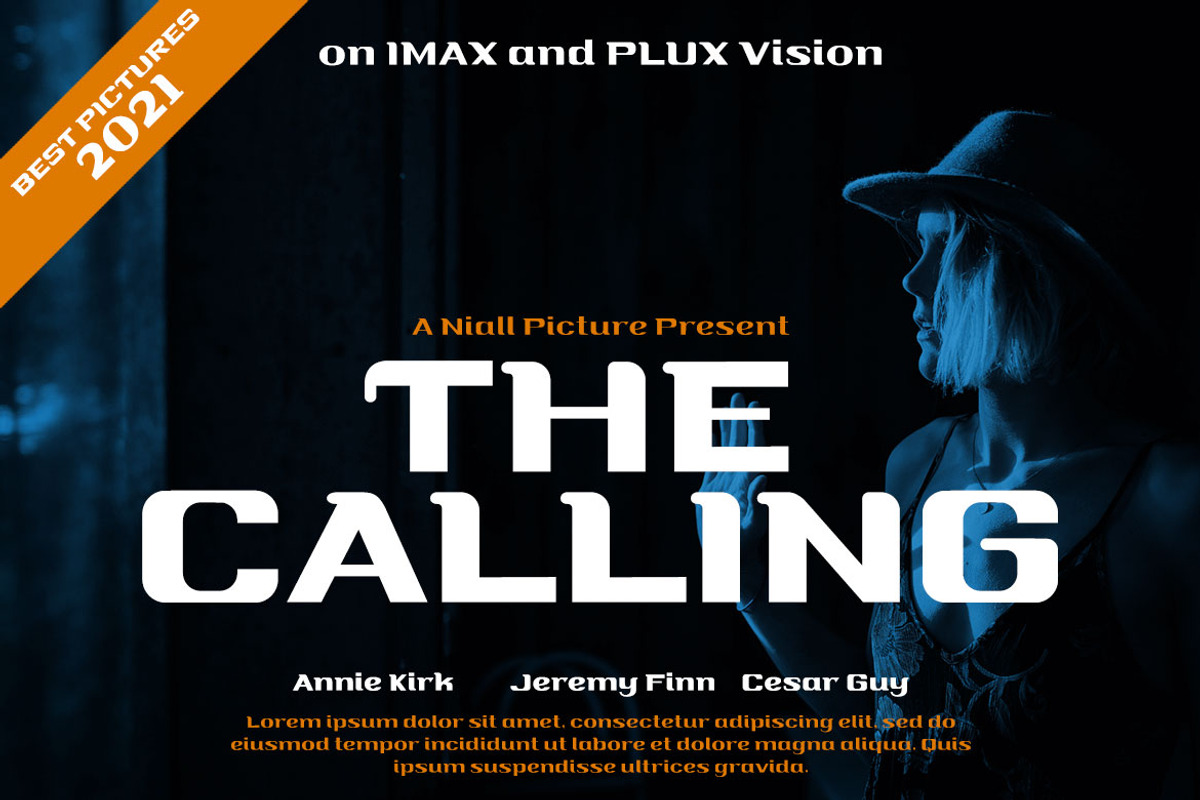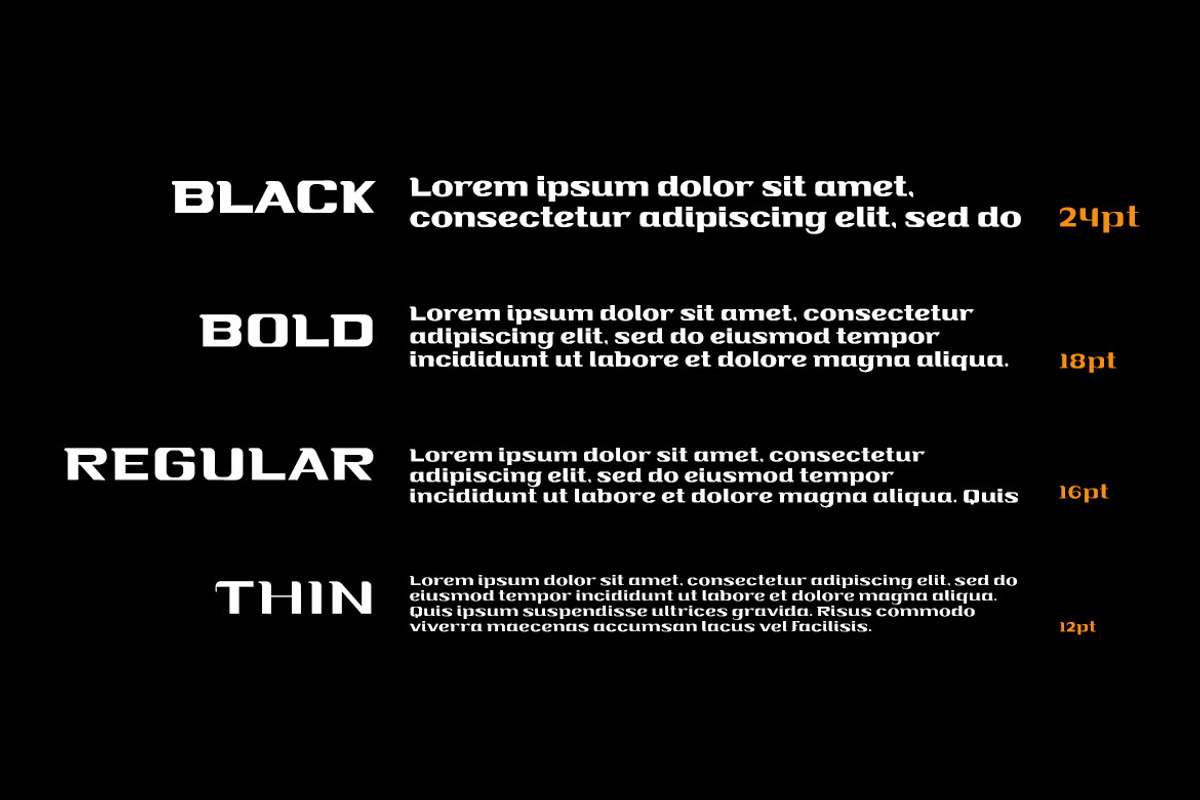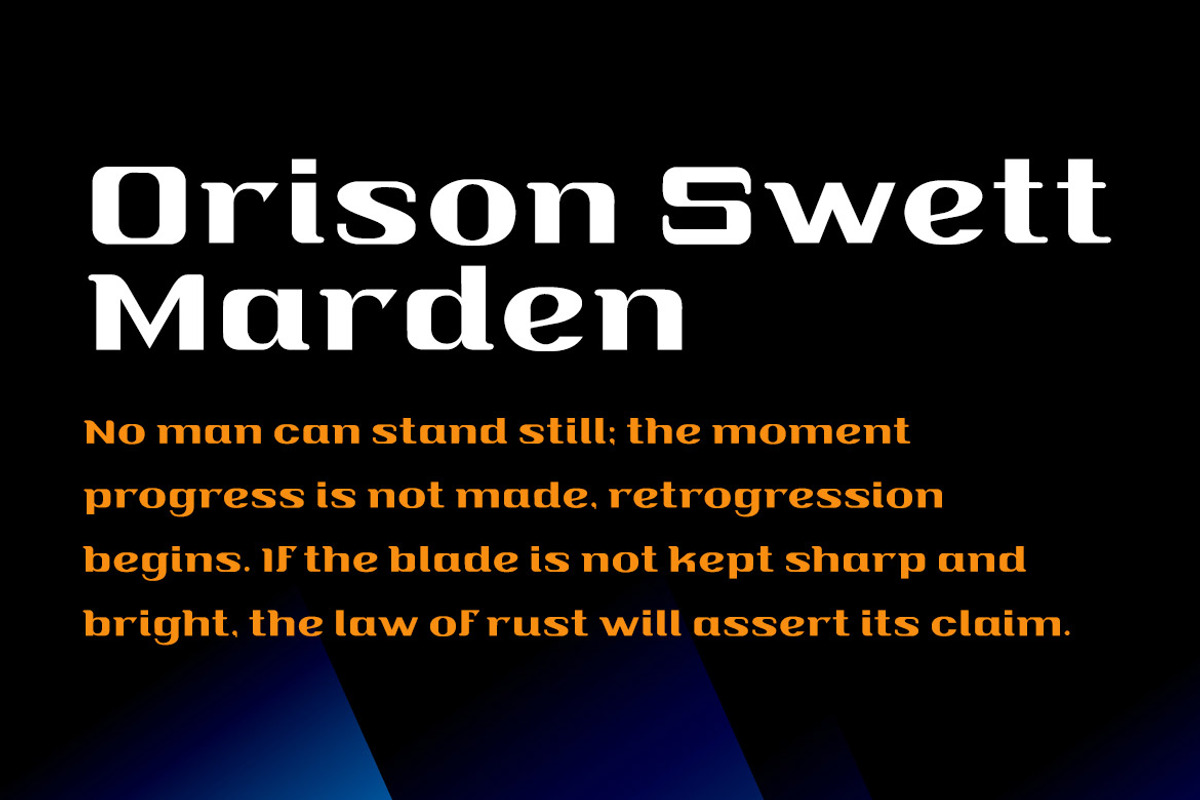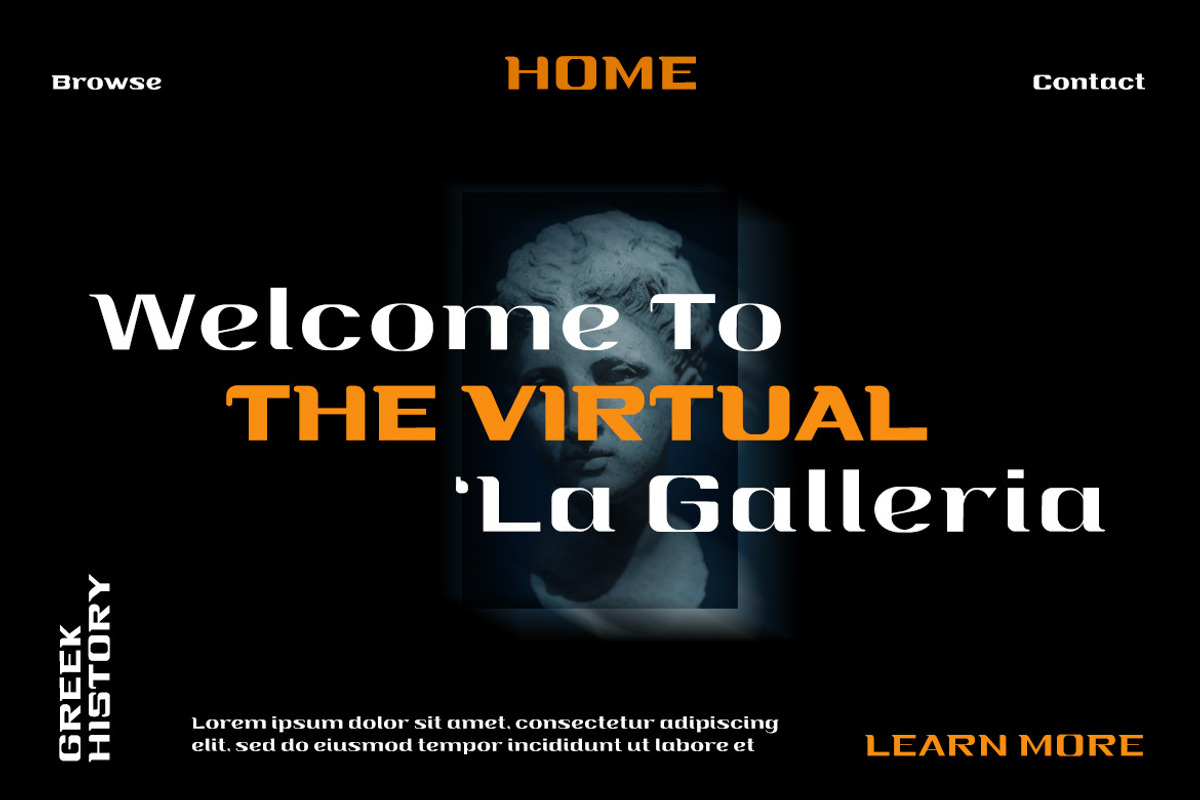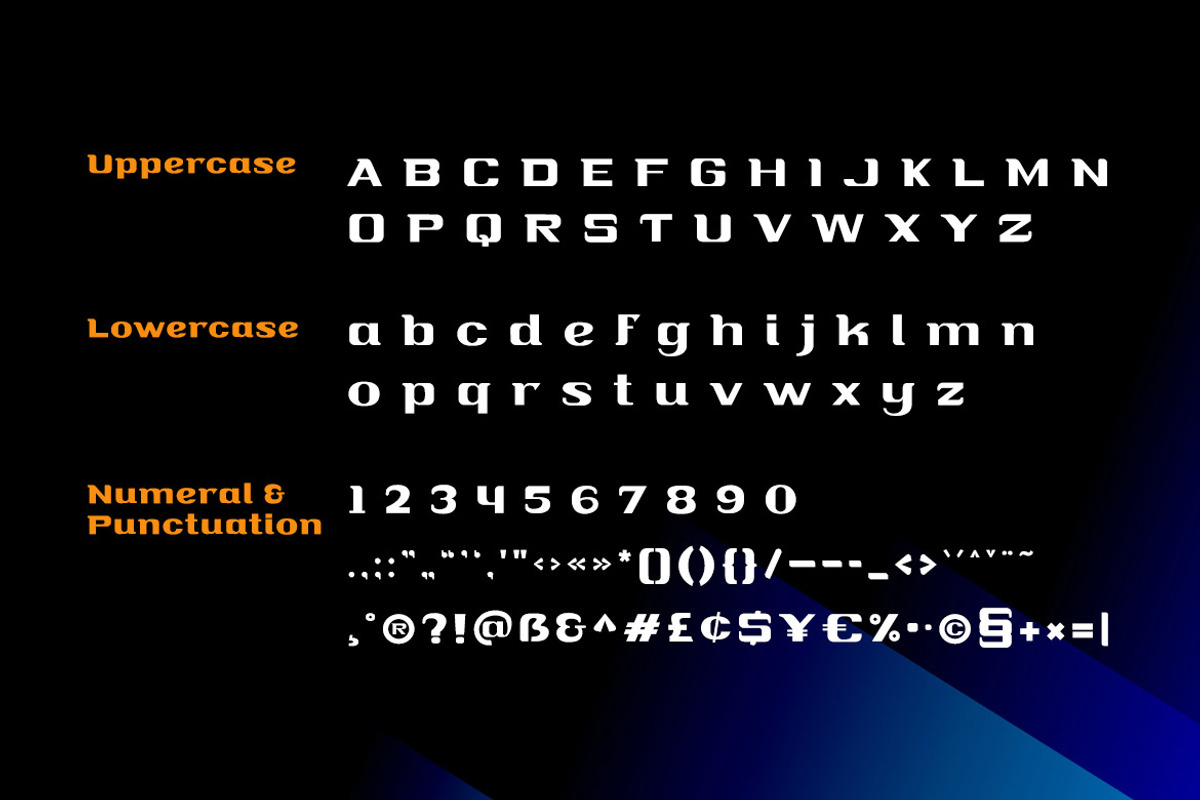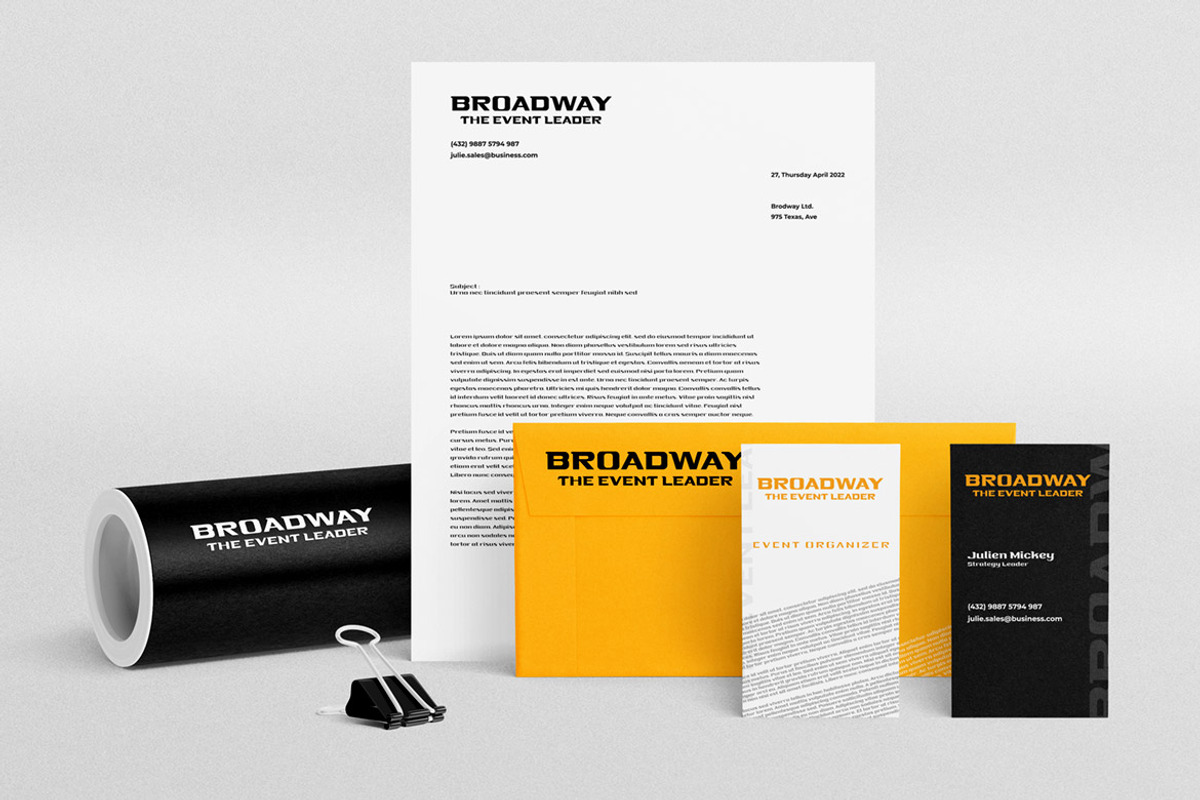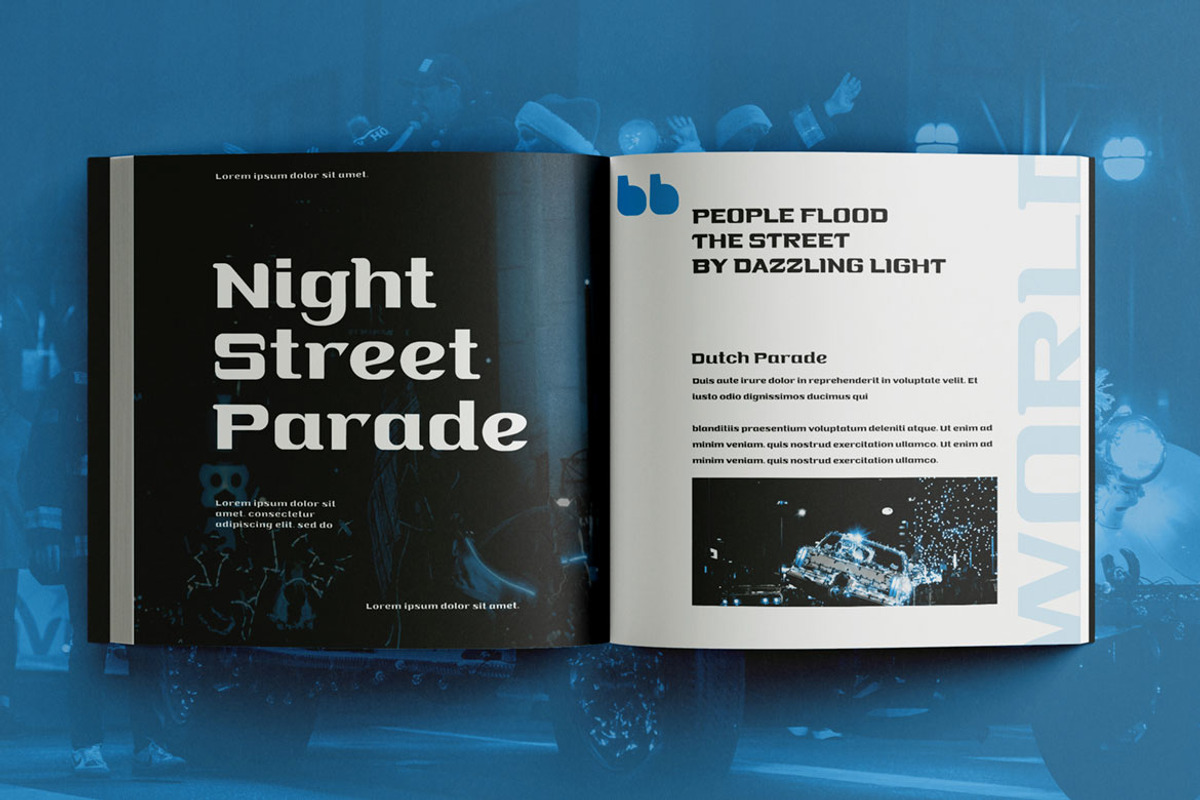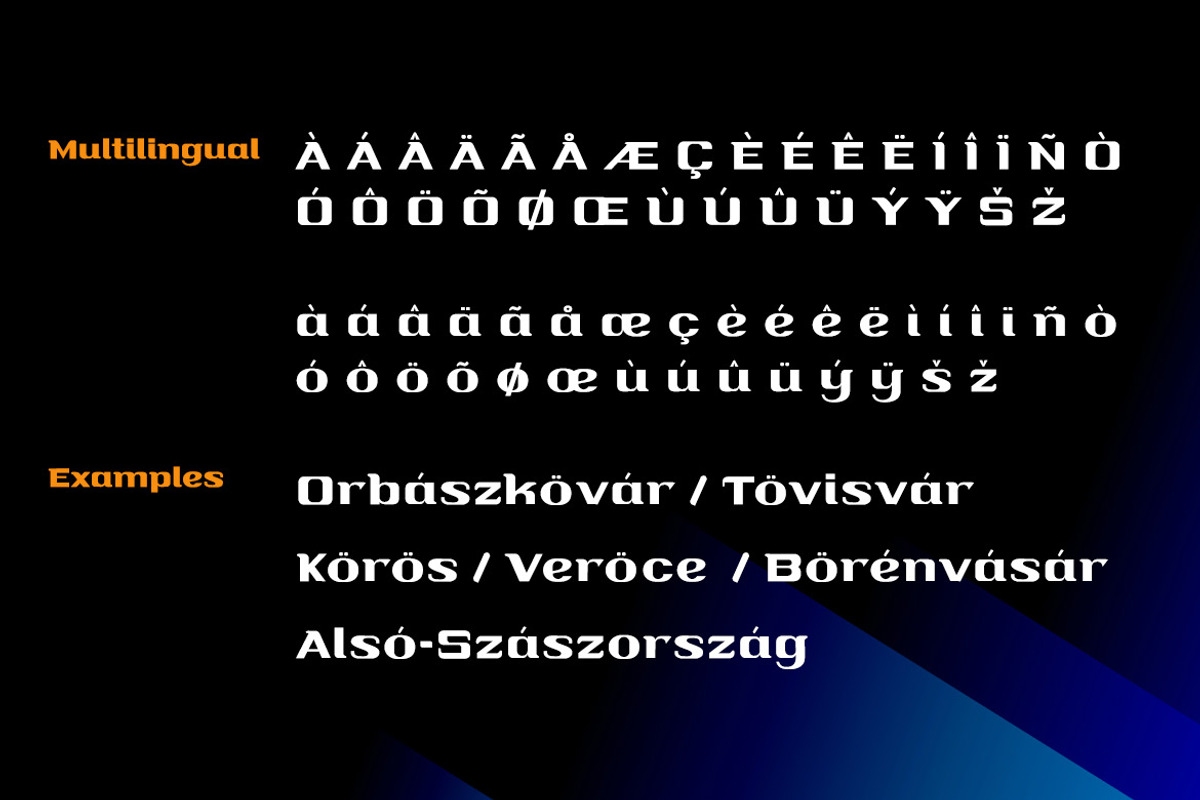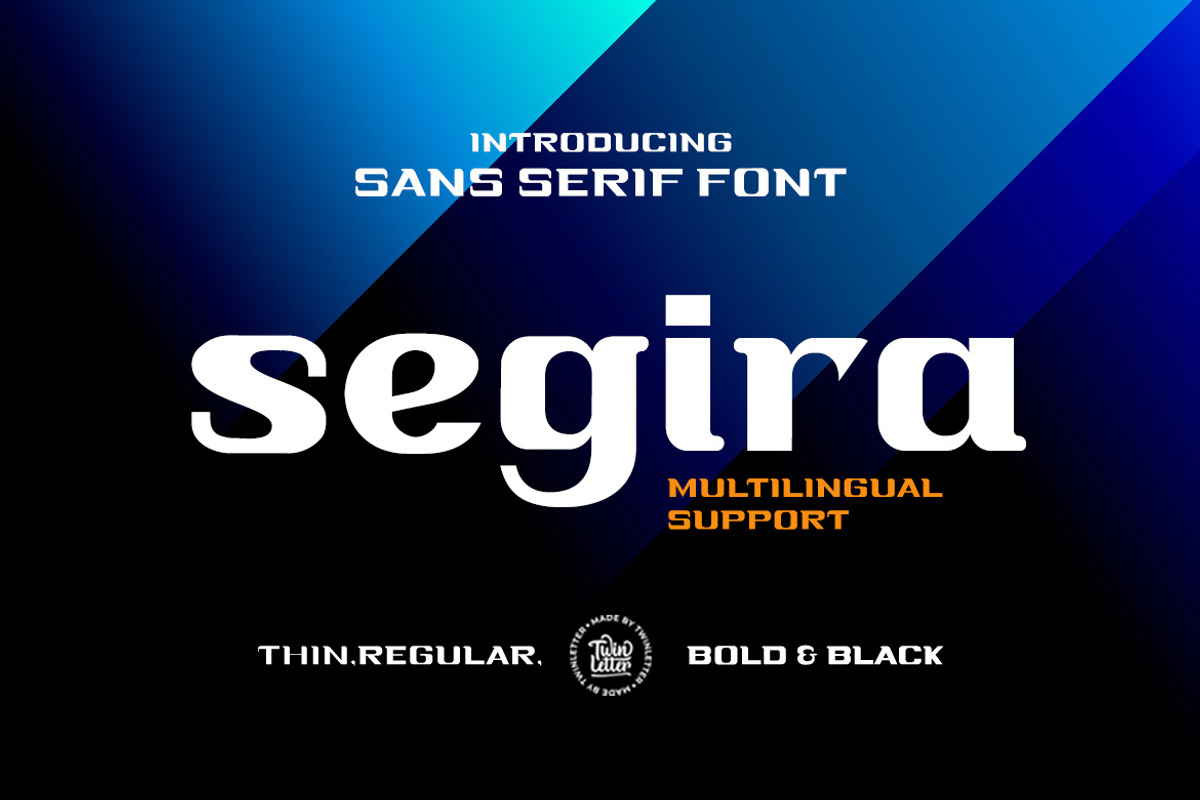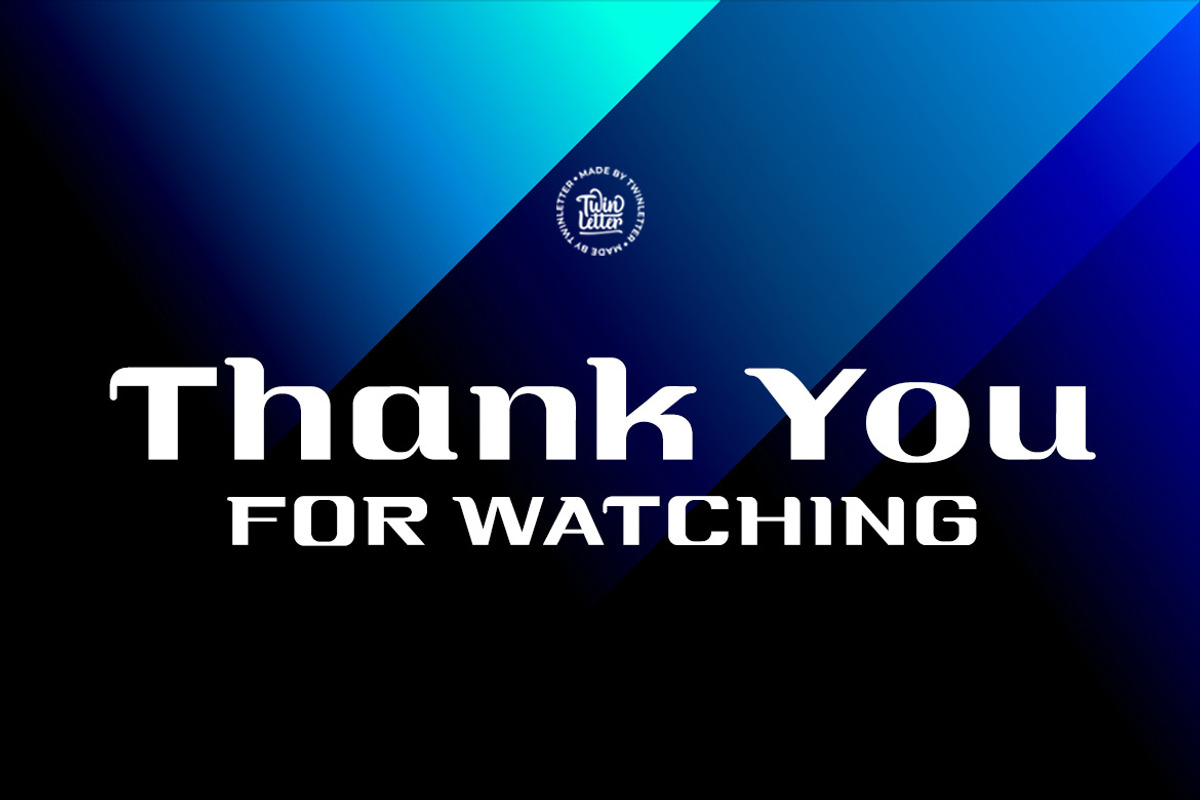
Segira
Segira is a sanserif font that gives off a charming and sophisticated vibe when used in a specific project. Because each letter has a distinct shape, this font is highly suggested for you to use in your major project; everyone will be impressed and focused on the graphic appearance of your project, and you will receive a lot of positive feedback.
of course, your various design projects will be perfect and extraordinary if you use this font because this font is equipped with a font family, both for titles and subtitles and sentence text, start using our fonts for your extraordinary projects.